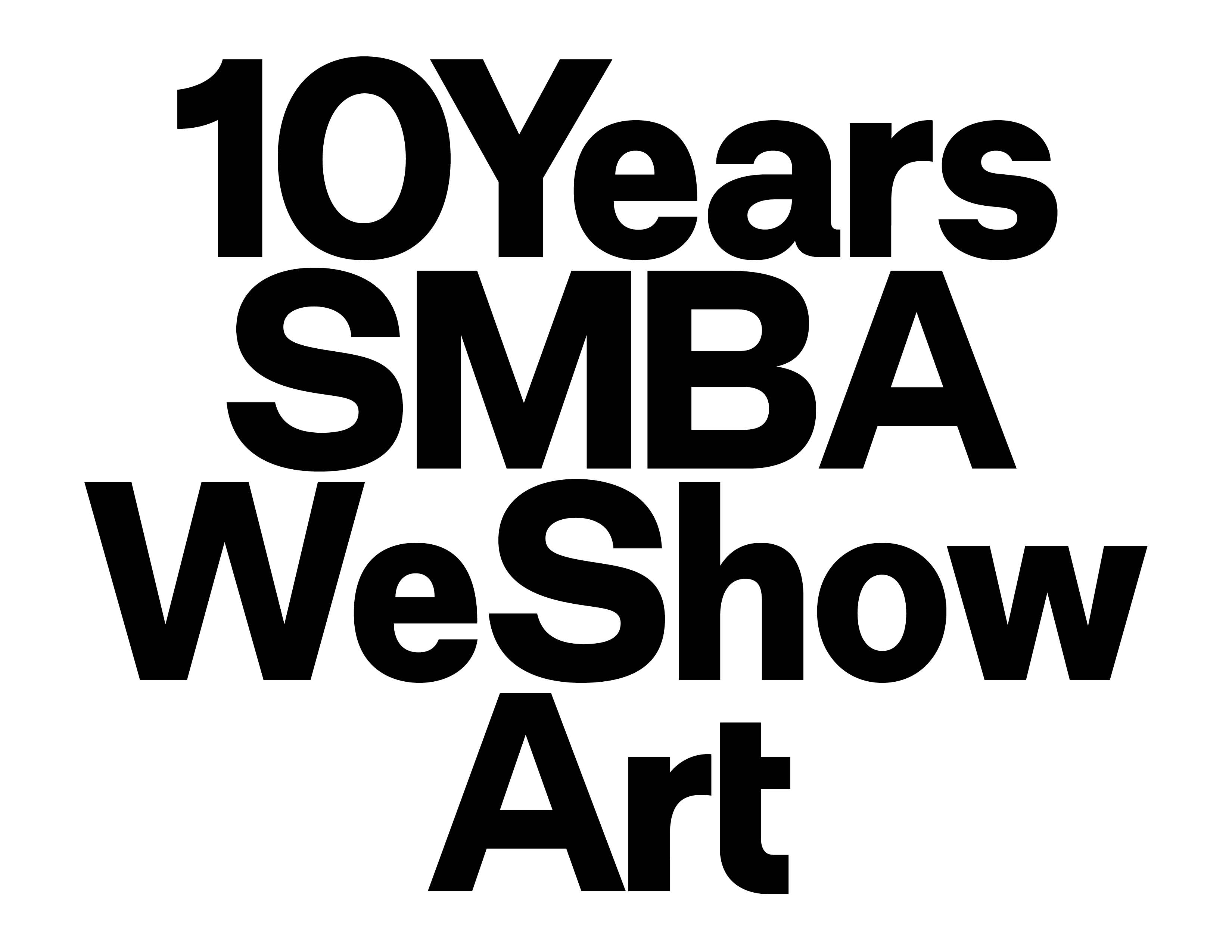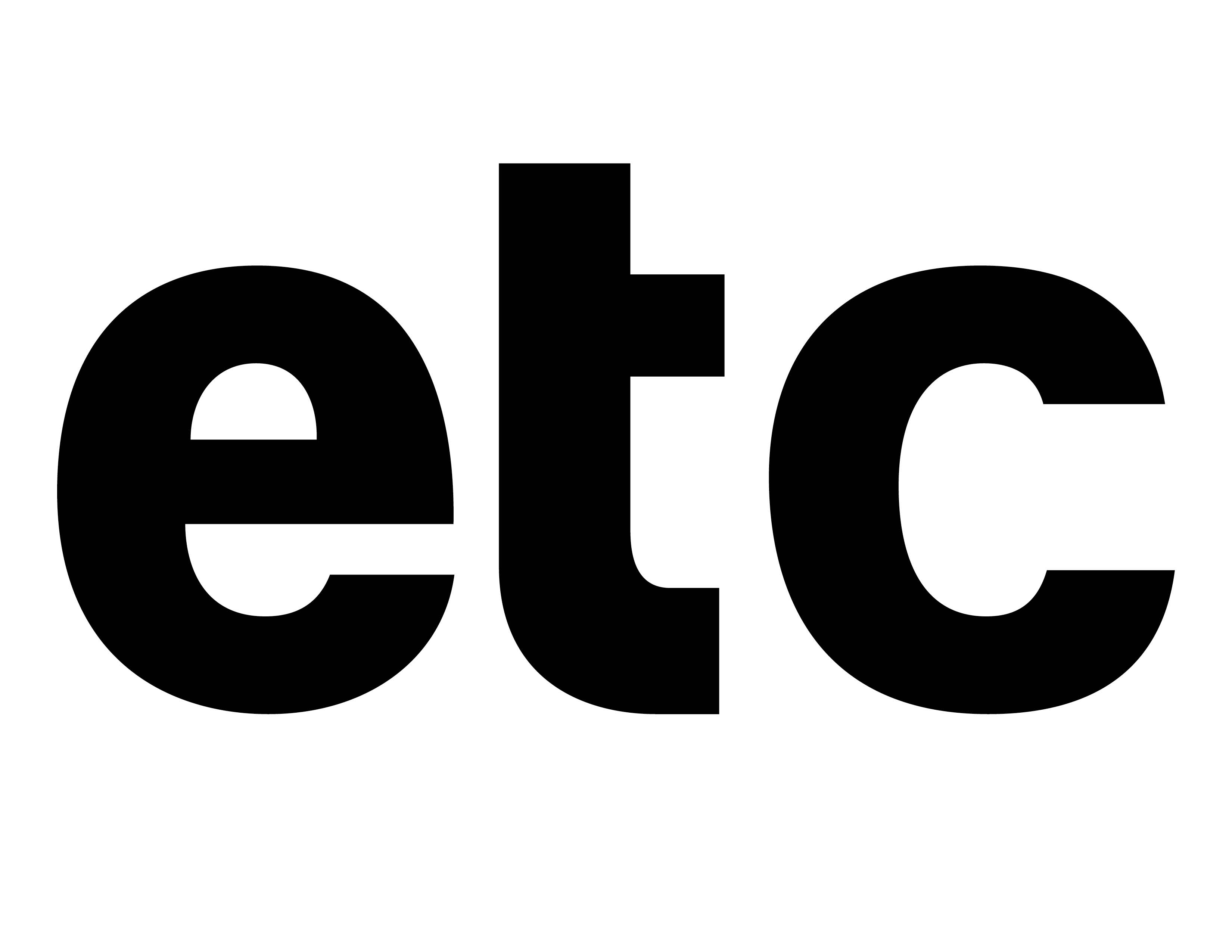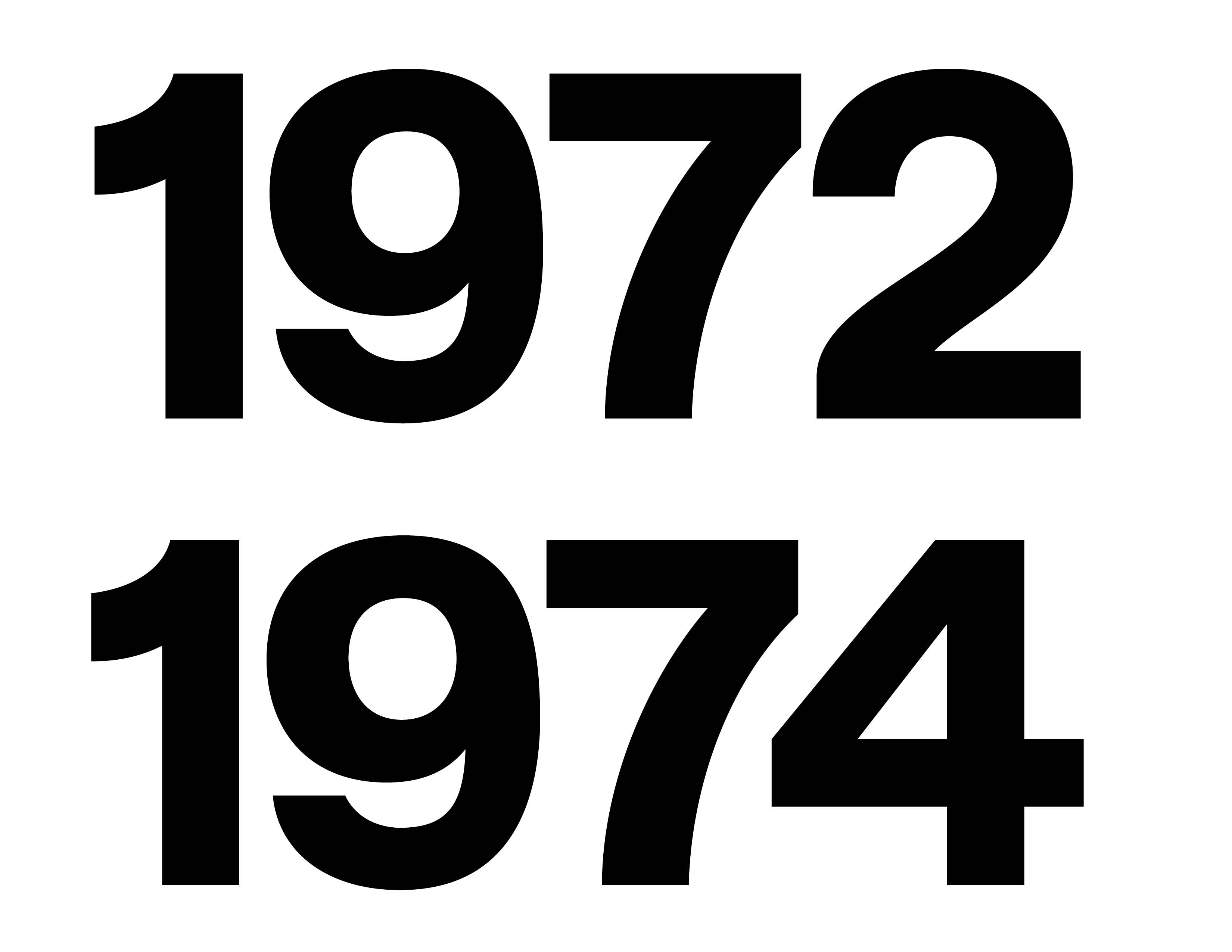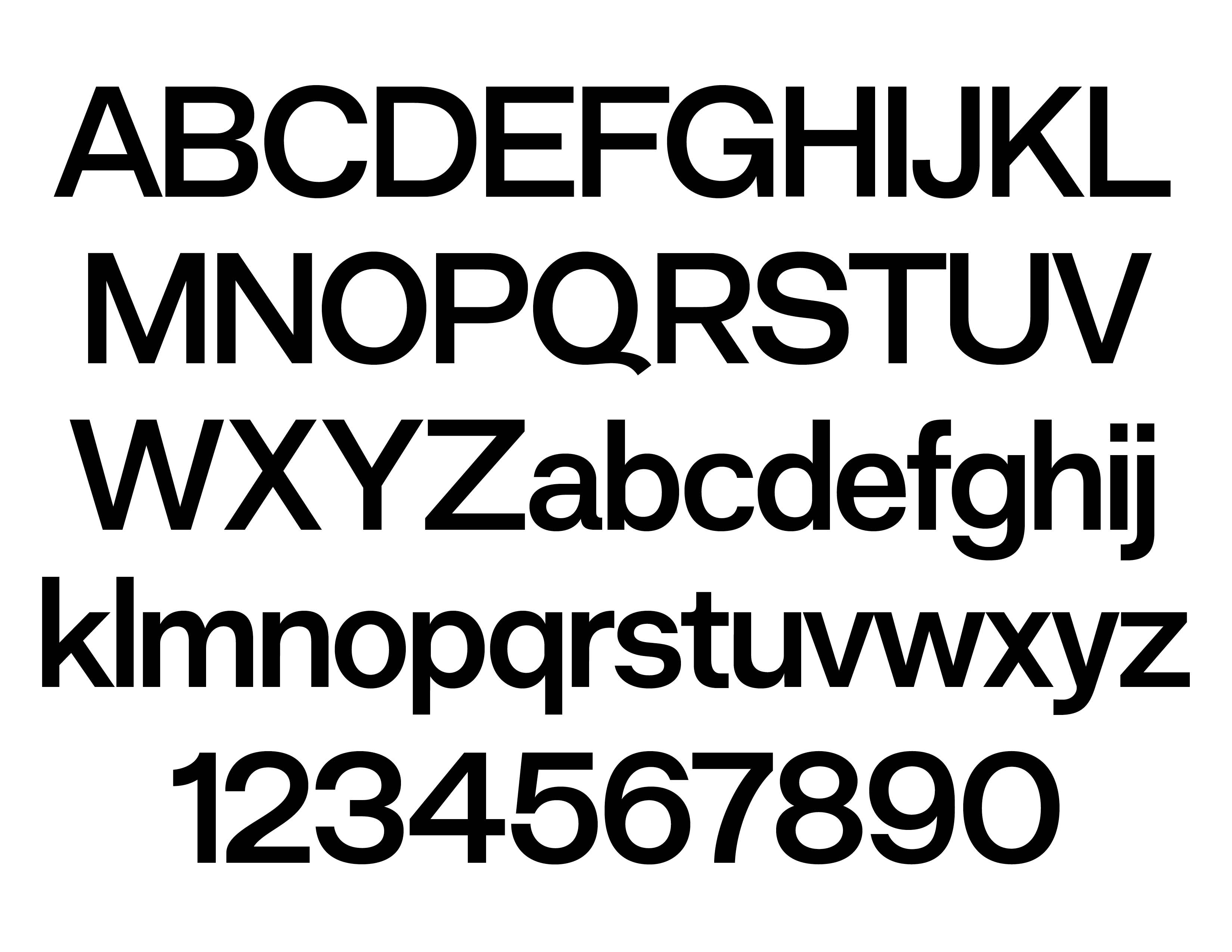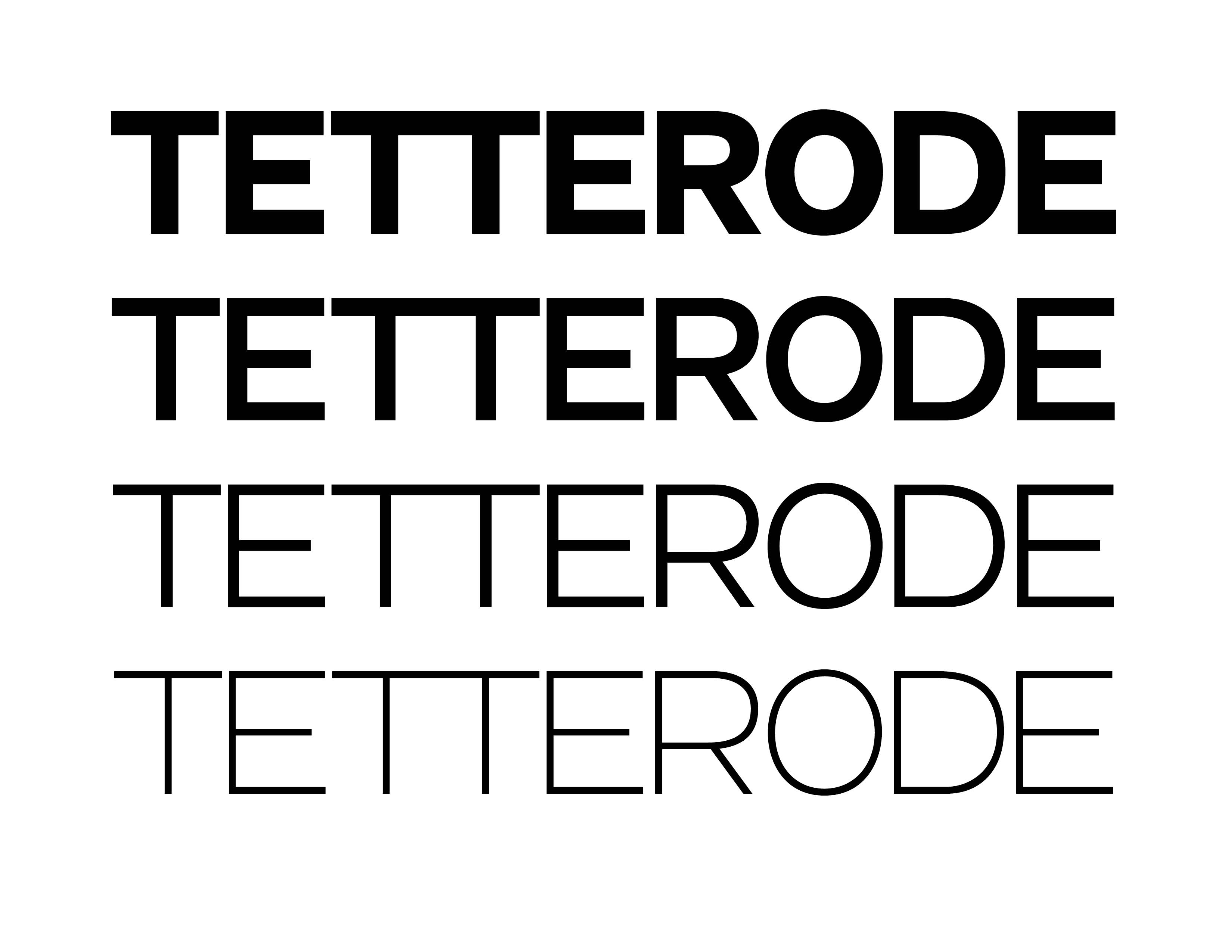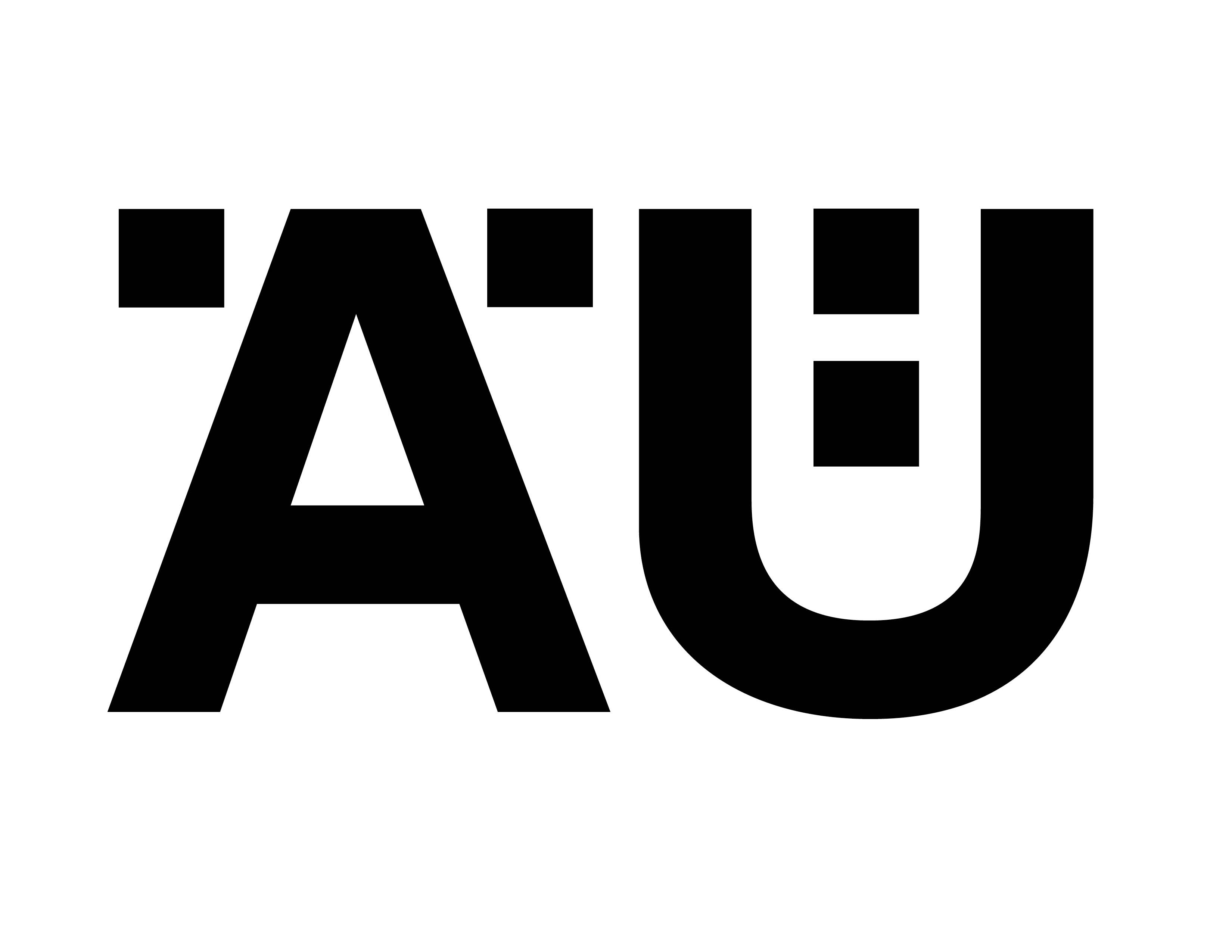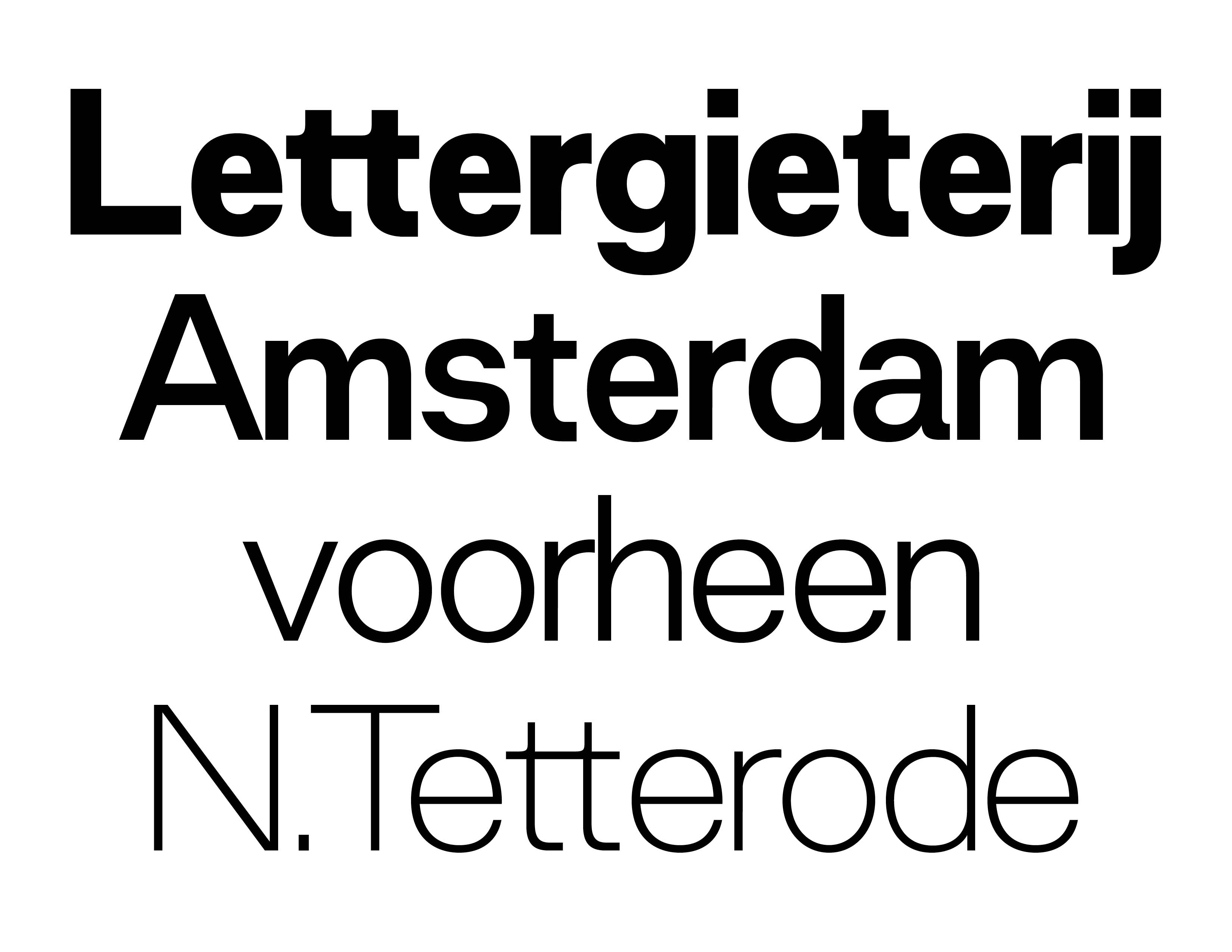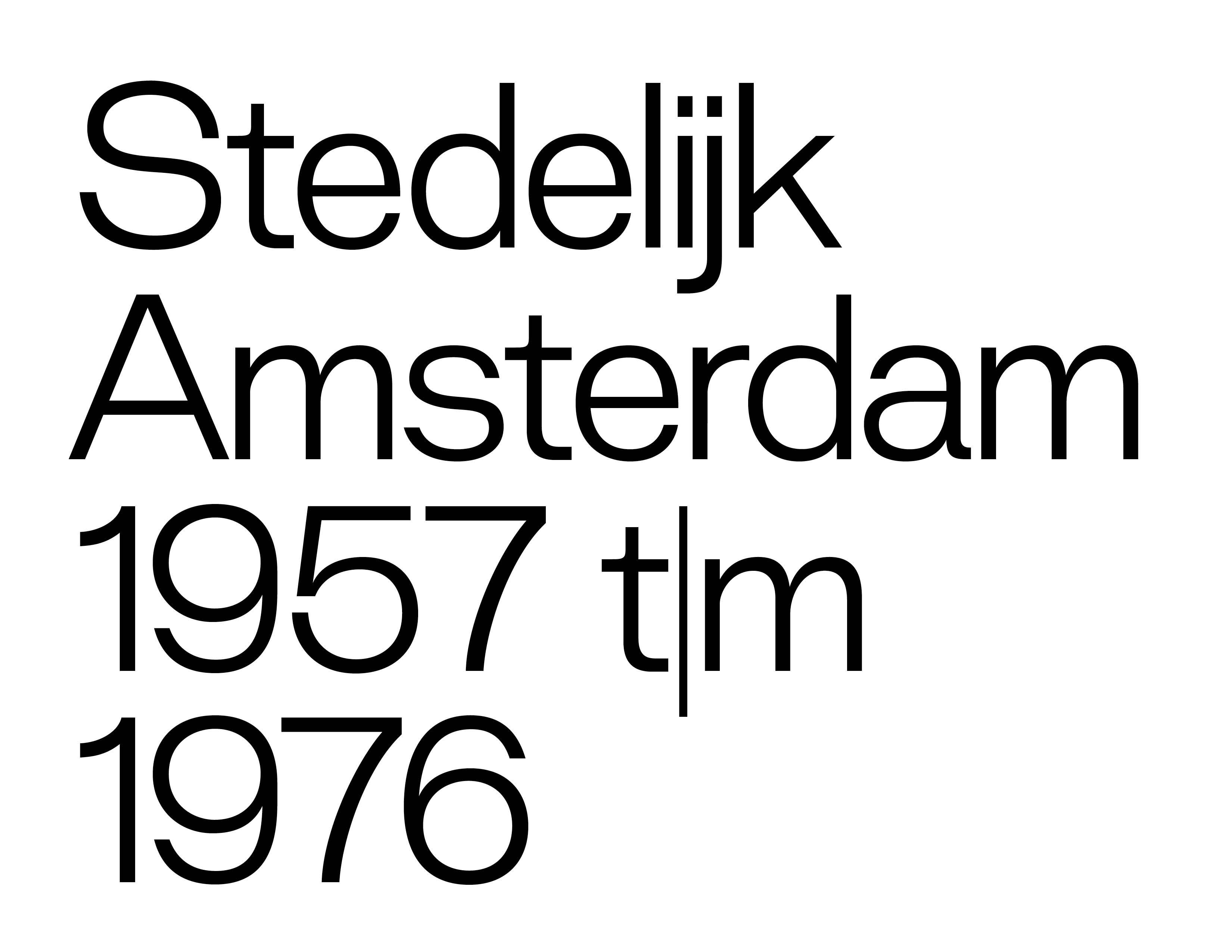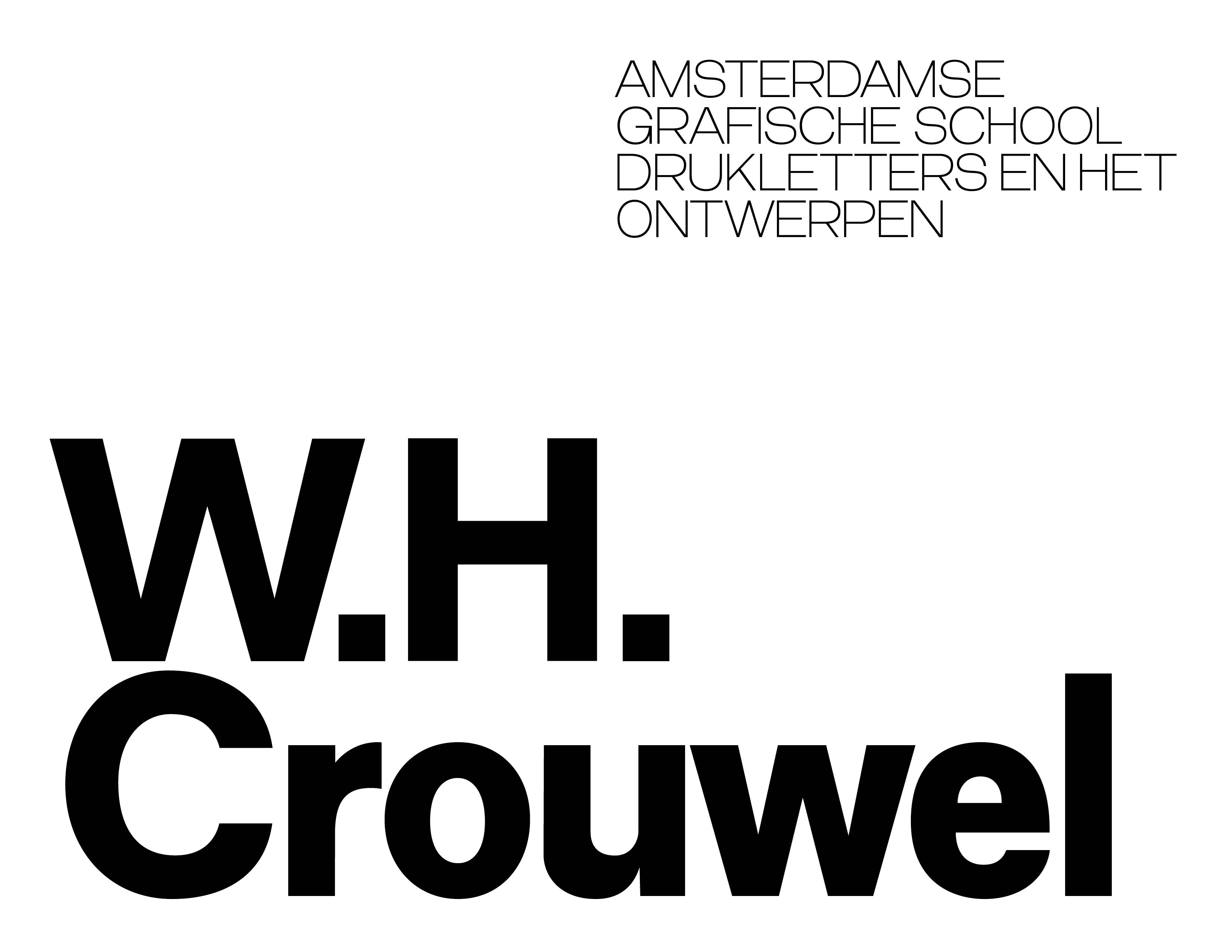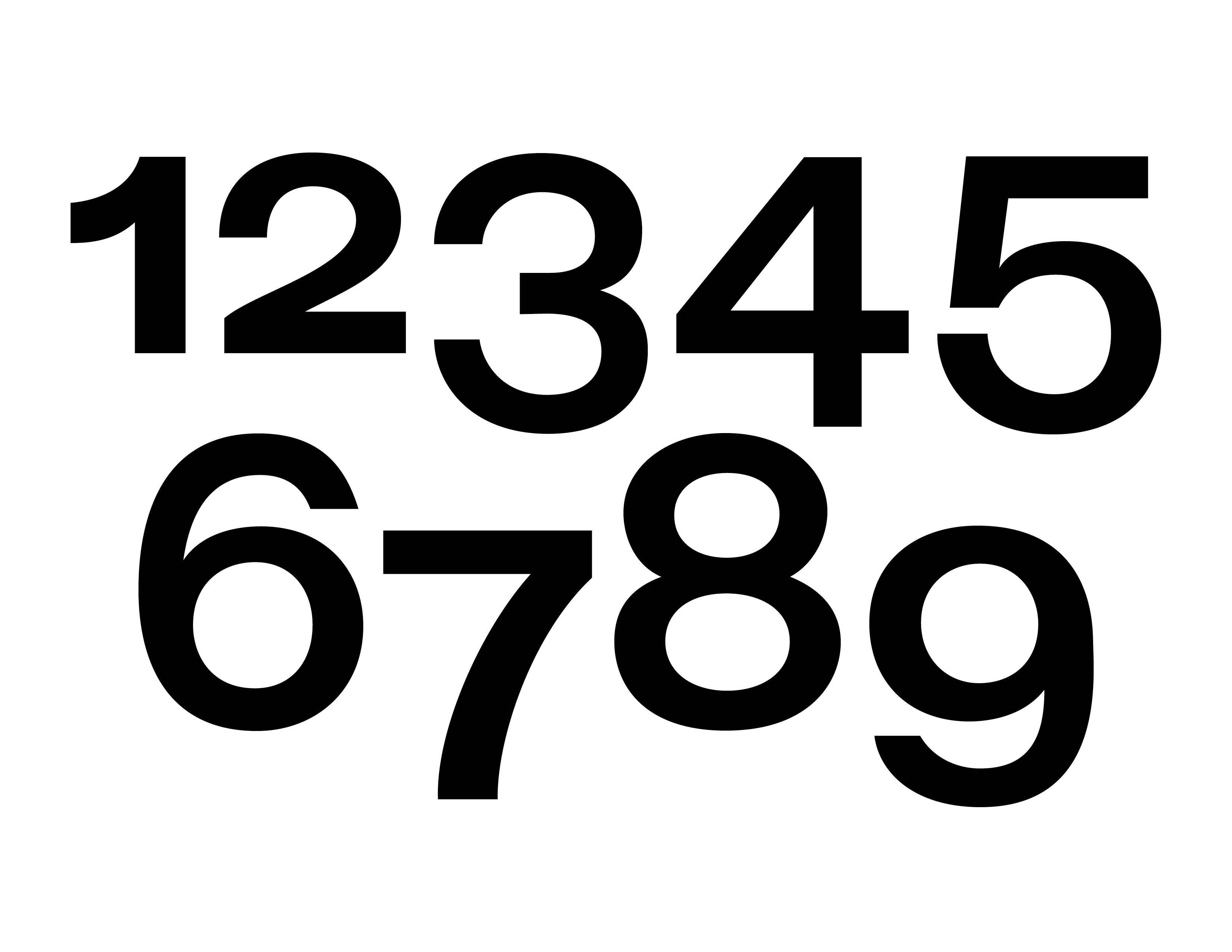
Dooijes Sans
Dooijes Sans is a modern typeface inspired by Dutch museum catalogs. With its contemporary character and remarkable versatility, it offers a refreshing alternative to conventional neutral fonts. The design carries a friendly yet approachable charm, effortlessly adding warmth and personality to any project. A wide range of alternates encourages creative expression, leaving a memorable visual impression. Embrace the refined allure of Dooijes Sans and let its adaptable nature breathe life into your work. From museum catalogs and wayfinding systems to pairing with artists’ paintings, this typeface elevates design with clarity, style, and elegance.
Sans Serif